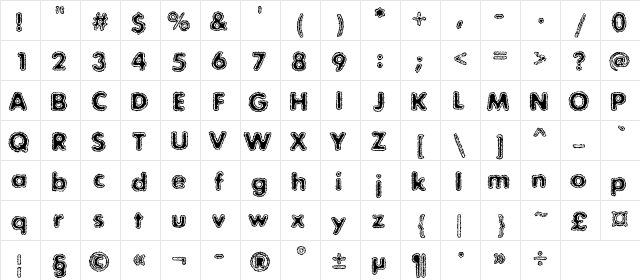
ExposureCMixTwo Regular
Design Context for ExposureCMixTwo Typeface
ExposureCMixTwo is a composed and adaptable typeface that performs quietly and consistently across a wide range of design contexts.